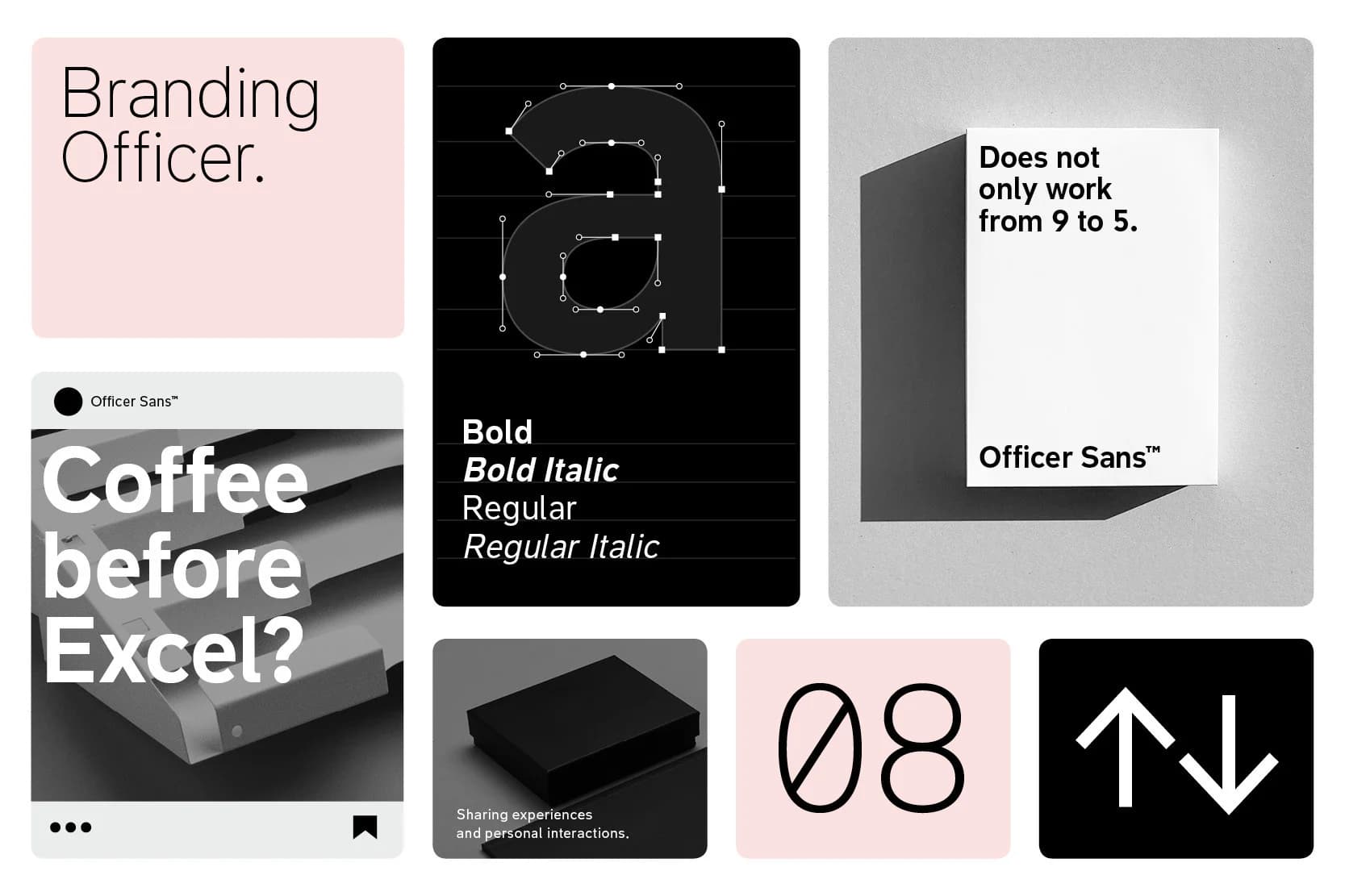
Officer Sans Free
A free-tier cut of HvD Fonts' Officer Sans, offering a single style from what appears to be a broader grotesque family.
Officer Sans Free is a no-cost entry point into HvD Fonts' Officer Sans family, a grotesque sans-serif suited to professional and editorial contexts. Details on the full family's weight range and language support are not publicly available from this page. As a free variant, it likely covers a limited subset of the commercial release.
Officer Sans is a sans-serif in the grotesque tradition, typical of HvD Fonts' professional text-focused releases; the free variant suggests a stripped-down version of a wider commercial family.